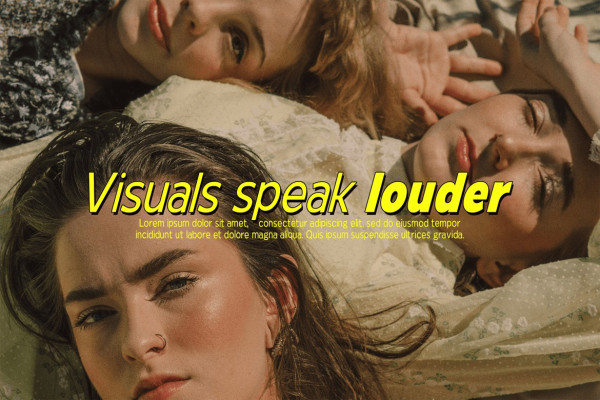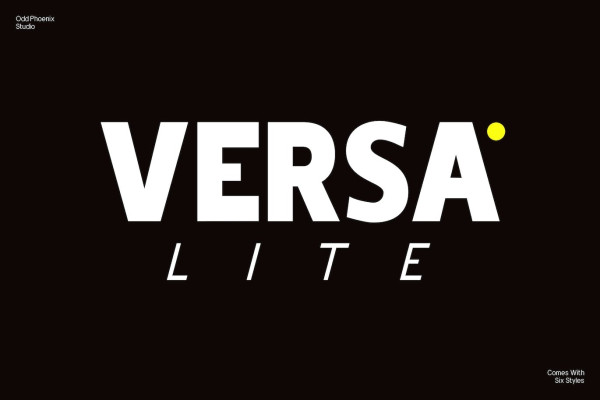
VersaLite Font
VersaLite Font, a versatile sans serif font family with regular, italic, bold, bold italic, black, and black italic styles. Perfect for modern designs.